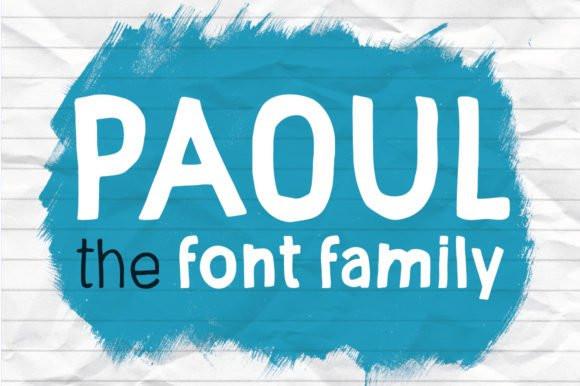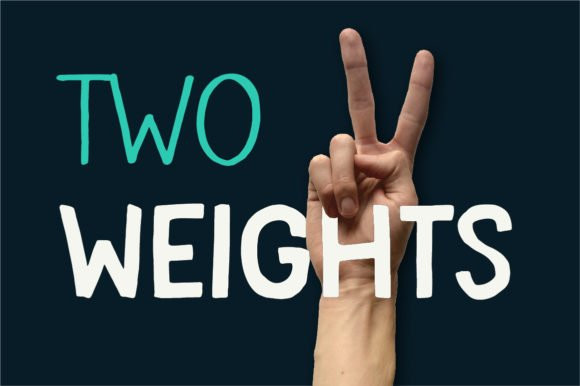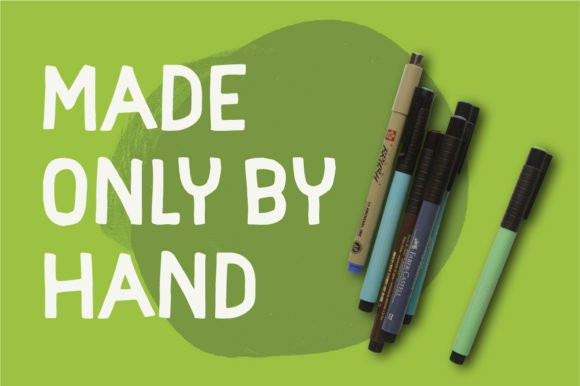
Paoul Font
Paoul is a fun and friendly display font. It has a neat and casual style and as a result, it could be an incredible fit for every informal or children related design.